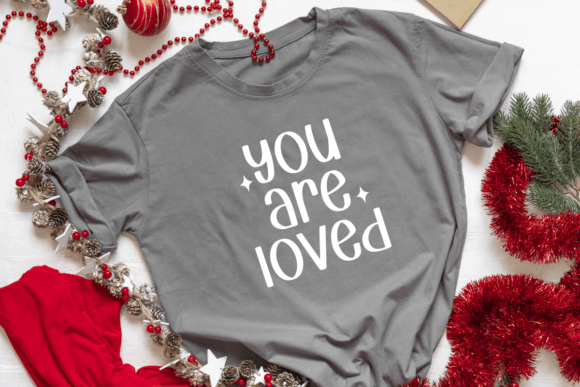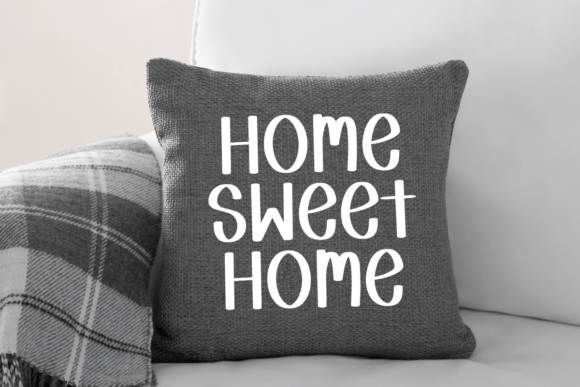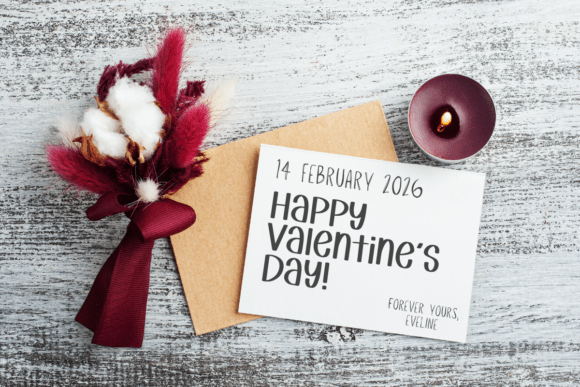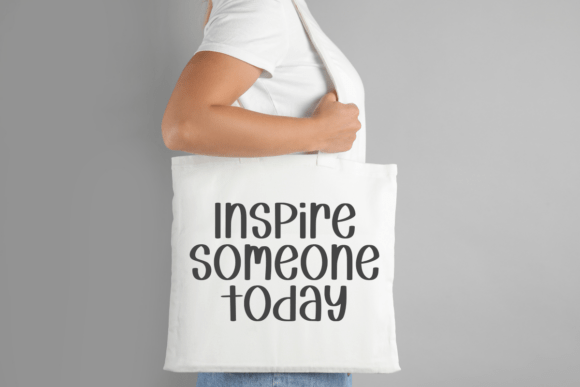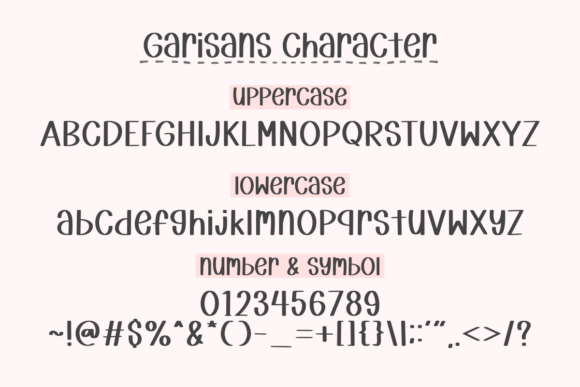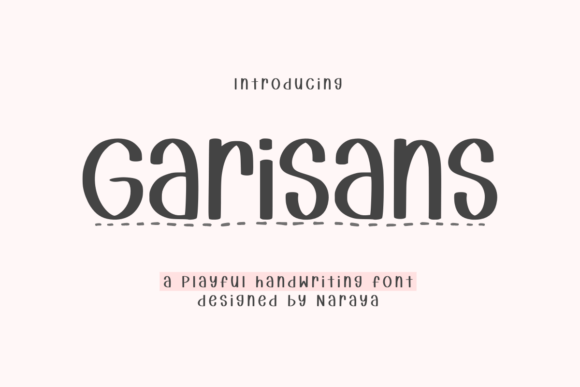
Garisans Font: Adding a Touch of Joy and Whimsy to Your Creative Projects
In the world of typography, fonts play a crucial role in conveying the tone and personality of a brand or creative project. If you’re looking for a font that exudes playfulness, warmth, and a touch of handmade charm, look no further than Garisans Font. Designed to bring a sense of joy and personal warmth to your creative endeavors, Garisans is a beautiful handwriting display font that is sure to captivate your audience.
Clean, Bouncy Lines and Charming Monolinear Weight
One of the standout features of Garisans Font is its clean, bouncy lines and charming monolinear weight. This unique combination gives the font a friendly yet modern vibe that is perfect for a wide range of creative projects. Whether you’re working on playful branding, creative journals, or whimsical quote designs, Garisans is the perfect choice. Its smooth paths ensure a perfect experience for cutting machine users, making it an excellent fit for craft-based businesses such as custom acrylic keychains, vinyl stickers, and nursery decor.
Perfect for Playful Branding and Creative Projects
Garisans Font is highly versatile and can be used for a variety of creative projects. Its playful and aesthetic design makes it an excellent choice for brands looking to add a touch of whimsy and personality to their branding. Whether you’re creating custom logos, social media graphics, or website headers, Garisans is sure to make a lasting impression. Additionally, its legibility makes it an excellent fit for kdp interiors, planner layouts, and social media content.
Recommended for Craft-Based Businesses
Craft-based businesses such as custom acrylic keychains, vinyl stickers, and nursery decor often require a font that can add a touch of handmade authenticity to their products. Garisans Font is highly recommended for these types of businesses due to its unique design and smooth paths. The font’s clean lines and charming monolinear weight make it perfect for creating custom designs that require a personal touch.
Excellent for Cutting Machine Users
For cutting machine users, Garisans Font is an excellent choice due to its smooth paths. The font’s design ensures a perfect experience for cutting machines, making it easy to create custom designs for a variety of products. Whether you’re creating custom vinyl stickers or intricate paper cutouts, Garisans Font is the perfect choice.
Key Features of Garisans Font
- Playful and aesthetic handwriting display font
- Clean, bouncy lines and charming monolinear weight
- Perfect for playful branding, creative journals, and whimsical quote designs
- Highly versatile and legible
- Smooth paths ensure a perfect experience for cutting machine users
- Recommended for craft-based businesses such as custom acrylic keychains, vinyl stickers, and nursery decor
In conclusion, Garisans Font is a beautiful handwriting display font that is sure to add a touch of joy and whimsy to your creative projects. Its unique design, clean lines, and charming monolinear weight make it perfect for a wide range of creative endeavors. Whether you’re a designer, crafter, or business owner, Garisans Font is an excellent choice for anyone looking to add a personal touch to their branding or creative projects.